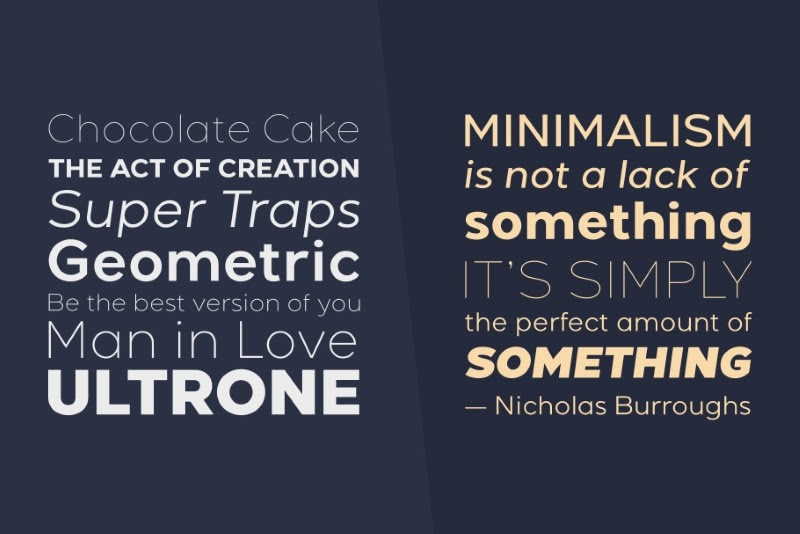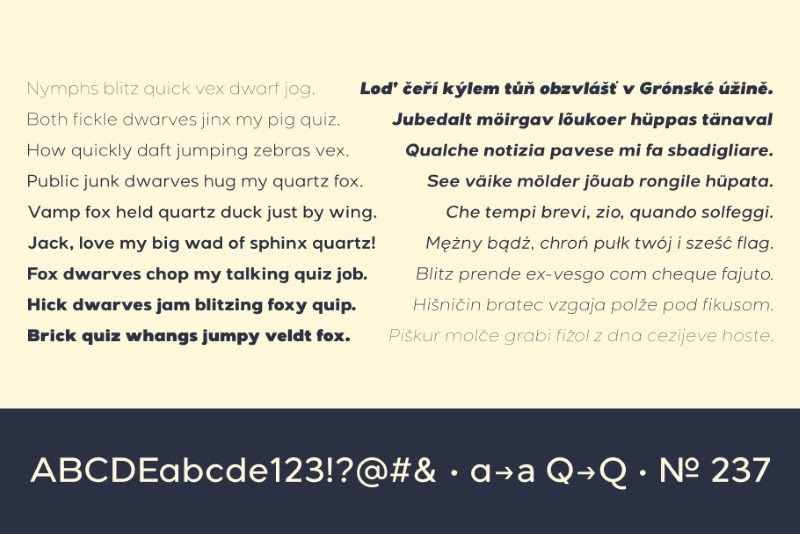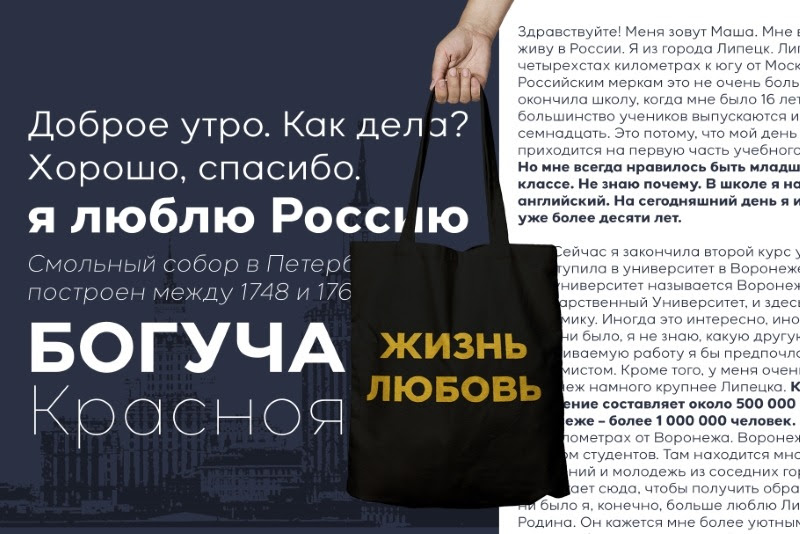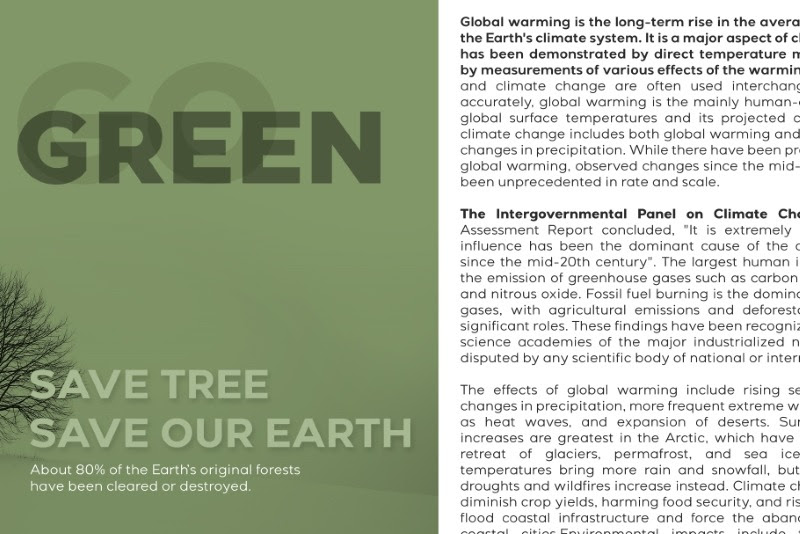
Solve Your Design Challenges with a Versatile Font Family
Typography is the backbone of visual communication. Whether you’re designing a magazine layout, crafting a brand identity, or building a website, the right font can make or break your message. Many designers struggle to find a font family that offers both stylistic flexibility and professional-grade quality. That’s where the Giga Sans Font Family Pack comes in — a comprehensive solution for all your typographic needs.
What Is the Giga Sans Font Family Pack?
The Giga Sans Font Family Pack is a premium collection of 18 fonts designed for professional use across print and digital platforms. This pack includes 9 upright weights ranging from Thin to Black, each paired with matching true italics, giving you a total of 18 fonts. Available in OTF and TTF formats, these fonts are compatible with Windows, Mac, Linux, and Web environments.
Giga Sans supports both Latin and Cyrillic alphabets, making it ideal for multilingual projects. It also includes 590+ glyphs and a rich set of OpenType features such as stylistic alternates, old style figures, tabular figures, fractions, localized forms, superscripts, and subscripts.
Why You’ll Love Giga Sans
2. Versatility Across Projects
From bold headlines to long-form content, Giga Sans adapts beautifully. Its clean, modern design makes it suitable for magazines, brochures, catalogs, websites, apps, and branding materials.
3. True Italics for Every Weight
Unlike faux italics, Giga Sans includes true italic styles for each weight, ensuring typographic consistency and elegance.
4. Multilingual Support
With support for Western, Central, and Eastern European languages, as well as Baltic, Turkish, Romanian, and Cyrillic alphabets, Giga Sans is ready for global use.
5. Rich OpenType Features
Enjoy advanced typographic control with features like stylistic alternates, old style figures, tabular figures, fractions, localized forms, and superscripts/subscripts.
Who Can Benefit from Giga Sans?
- Graphic Designers looking for a reliable sans serif font family for branding and layout design.
- Web Developers needing web-safe fonts with style and readability.
- Publishers creating multilingual content for magazines, books, and newspapers.
- Marketing Teams crafting brochures, catalogs, and promotional materials.
- Creative Agencies working on diverse client projects across industries.
Key Features
- Complete Font Family: 18 fonts in total — 9 weights with matching true italics.
- Glyph Count: Over 590 glyphs for rich typographic expression.
- Language Support: Latin & Cyrillic alphabets; Western, Central/Eastern Europe, Baltic, Turkish, Romanian.
- OpenType Features:
- Stylistic Alternates
- Old Style Figures
- Tabular Figures
- Fractions
- Localized Forms
- Superscripts/Subscripts
Conclusion: a Complete Typographic Toolkit
Giga Sans is more than just a font — it’s a complete typographic toolkit. With 18 fonts, true italics, multilingual support, and advanced OpenType features, this font family is built for professionals who value precision and style. Whether you’re designing for print or web, Giga Sans delivers the clarity, versatility, and elegance your projects deserve.